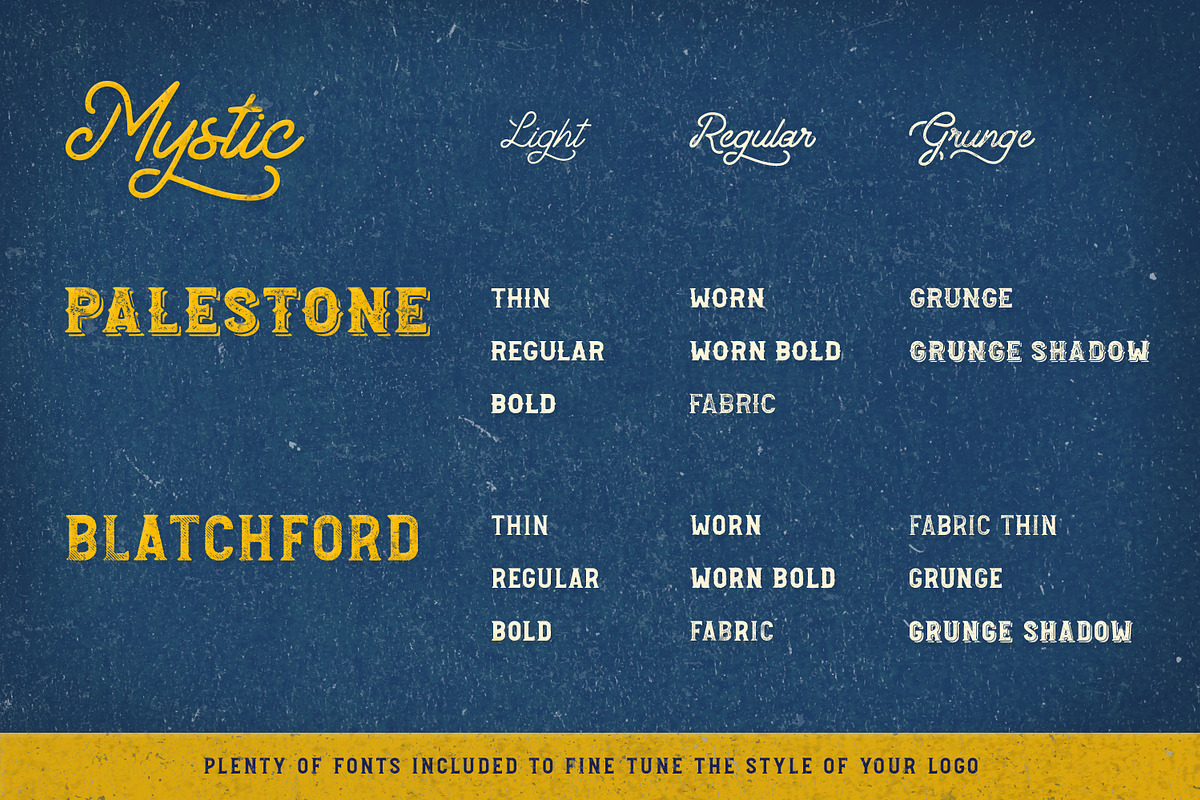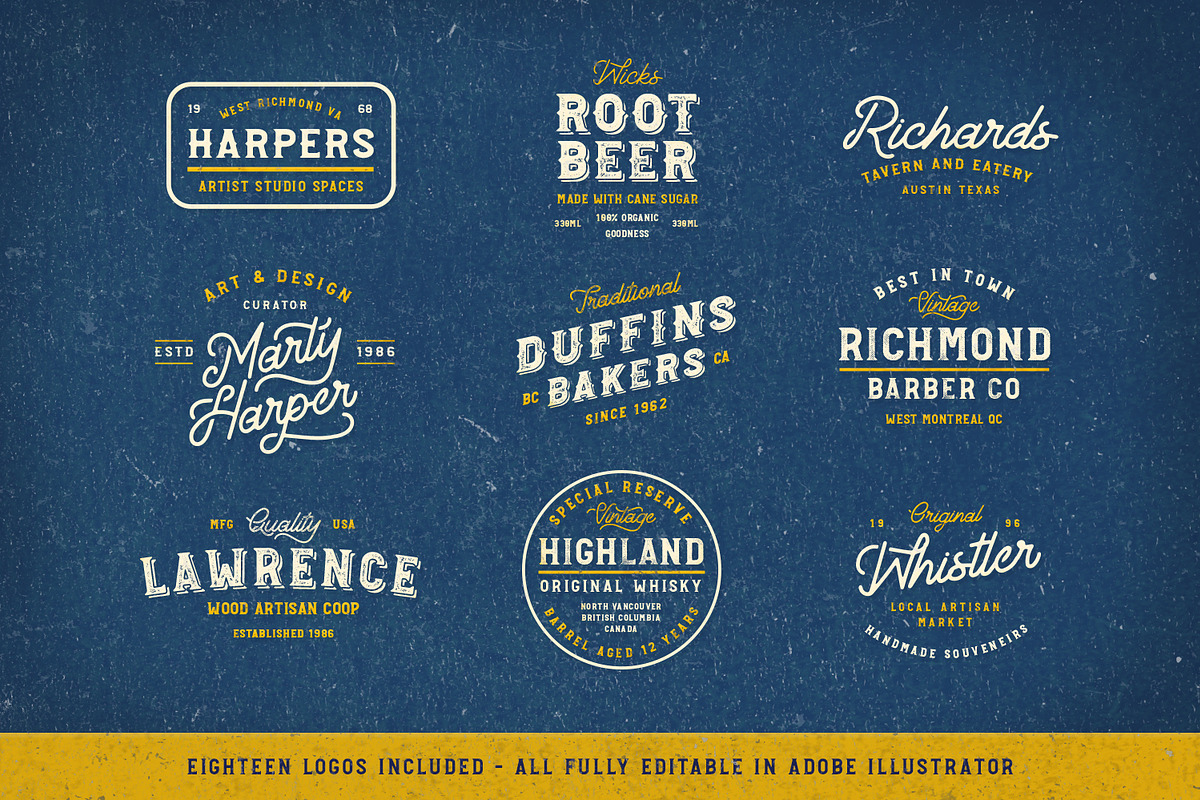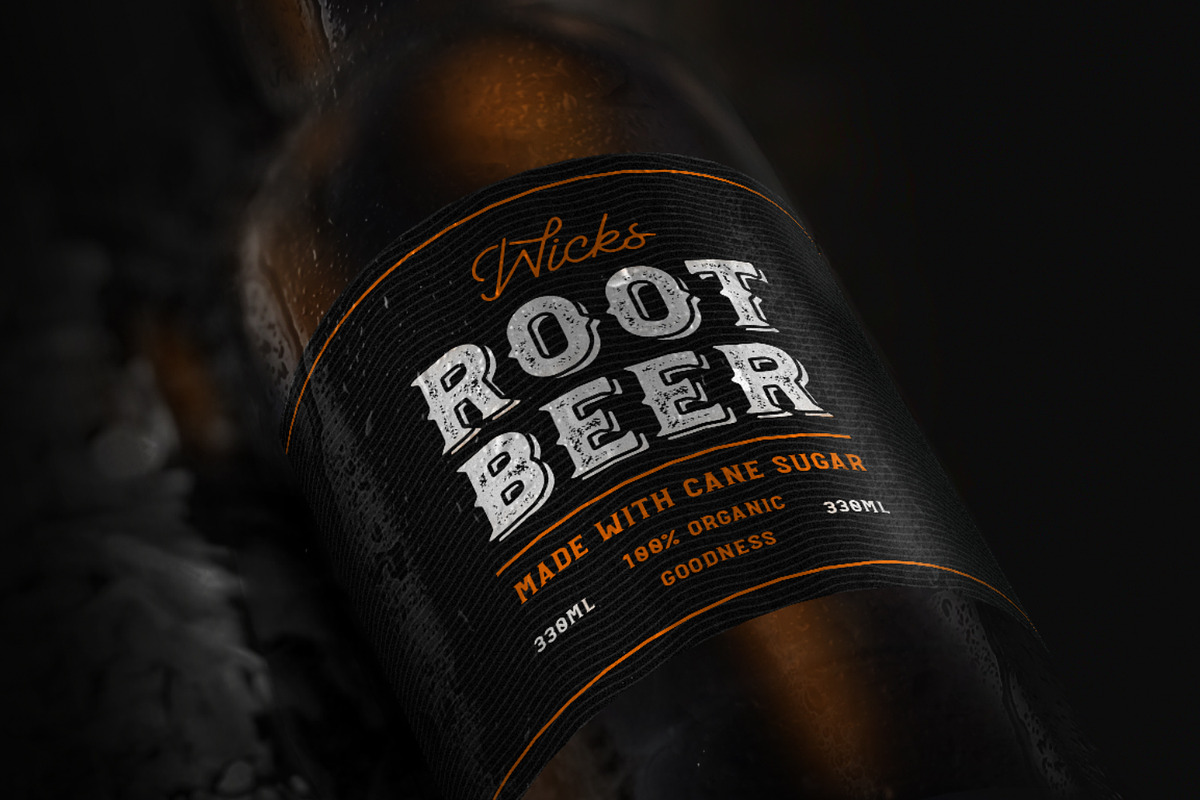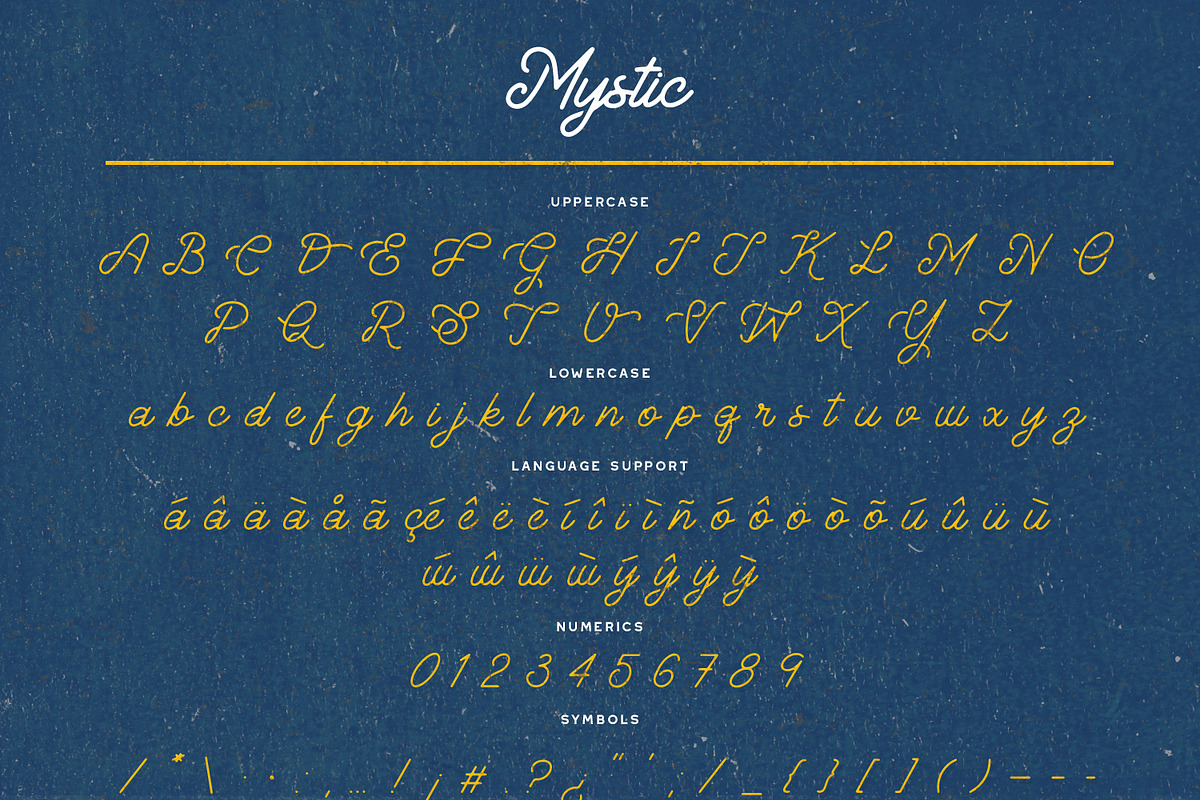
Explorers Logo & Font Collection
Use these logos and fonts on a variety of projects for your business. This package is perfect for social media posts (Instagram and Facebook), branding, logos, advertisements, you name it!
Logo Templates - We've included eighteen logo templates for you to use. Just load them up in Adobe Illustrator, and start customizing. Note that you need Illustrator CS2 (or higher) to load these templates. These templates are a great way to see how versatile these fonts are, and you can deconstruct them to get a better idea of how designers achieve certain effects for their logos.
Mystic Font Family - The Mystic Font Family is an extremely versatile script font. Not only do you get all the typical characters (plus a good amount of language support), but you get many alternate characters as well. For example, if you don't like how the lowercase y balances in your design, that's fine! You have 6 other options to choose from with loads of flair. Mystic comes in three versions: Regular, Light and Grunge.
Blatchford Font Family - This all caps font family complements the Mystic font with its serif additions. This family contains a nine different versions! If you're going for a rustic look, try out the Worn versions of the font. Looking for even more of a weathered, textured look? Try out the Grunge versions, or the very unique Fabric versions (my personal favorite).
Palestone Font Family - We couldn't have vintage effects without having a western style font now could we? Palestone comes in 8 different versions, and is great for when you're looking for something a little more decorative / ornate. The Grunge Shadow version is especially nice for striking bold titles.
Language Support - We've added in a great deal of extra characters to support many different languages.
- Each font family comes with a grunge version, so that you can add vintage / retro effects to your branding for that extra old school charm.